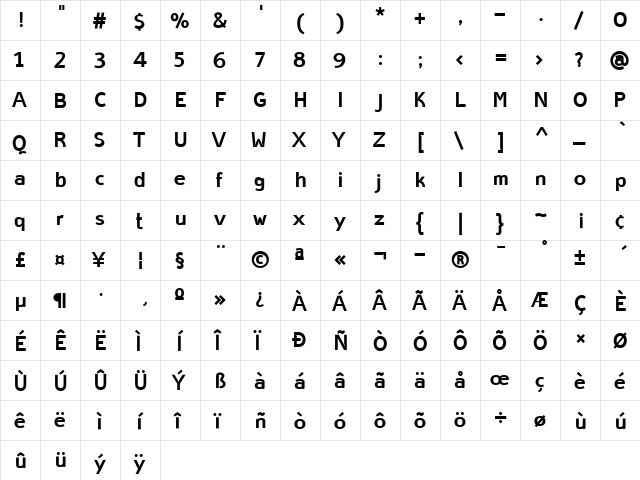
Plastizid97 Regular
Design Context for Plastizid97 Typeface
Plastizid97 offers clean, dependable letterforms without strong stylistic allegiance, making it a practical choice for designers who need flexibility.
Pro Tip: Pair Plastizid97 with a font of contrasting weight or personality to build a more expressive typographic hierarchy.